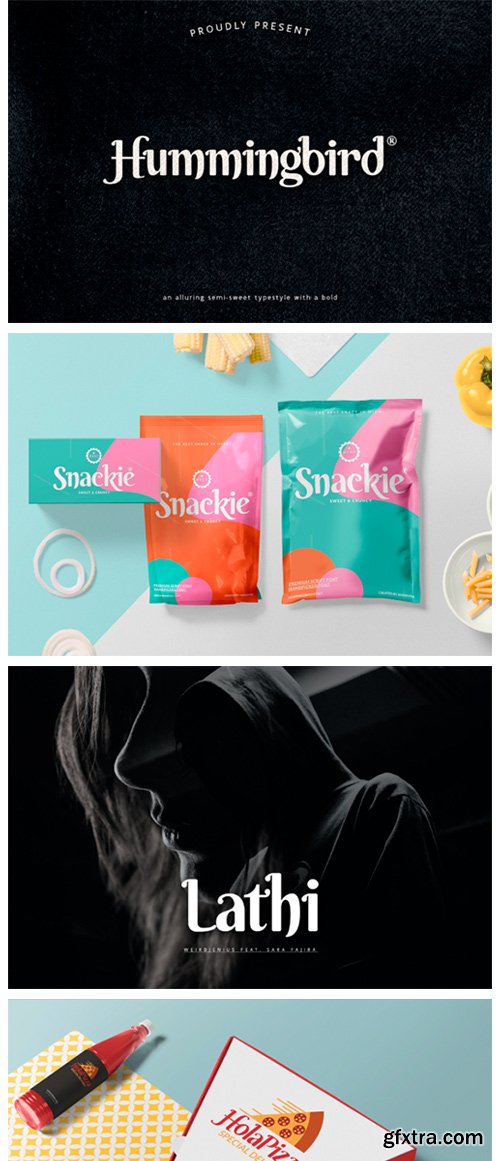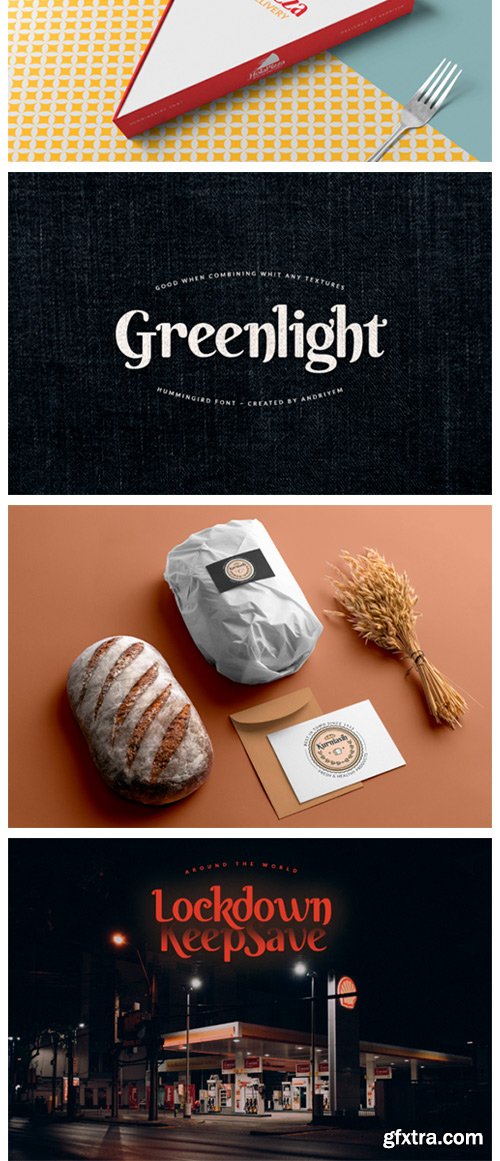
Hummingbird Font
Hummingbird is a unique and elegant serif font. Masterfully designed to become a true favorite, this font has the potential to bring each of your creative ideas to the highest level!